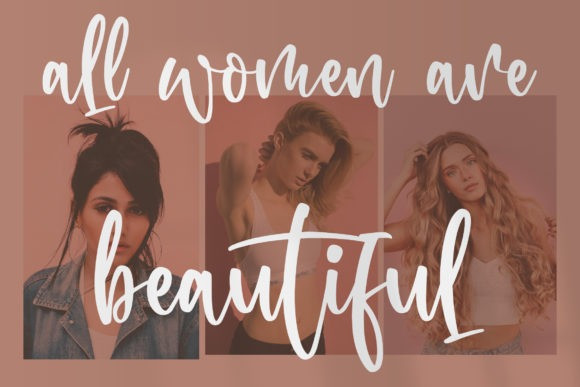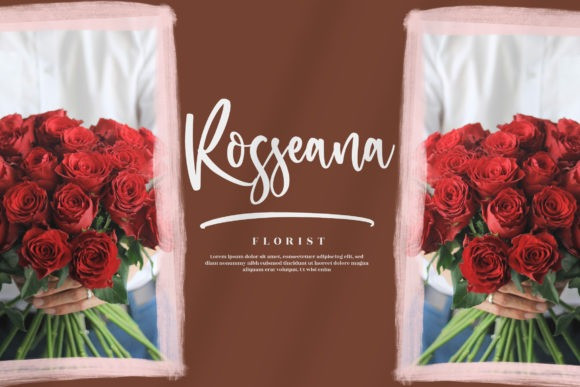
Rollection Script Font
Rollection Script Font, is a chic, refined script font that emanates sophistication and elegance. Its stylish alternates and ligatures make this font the perfect match for any project.